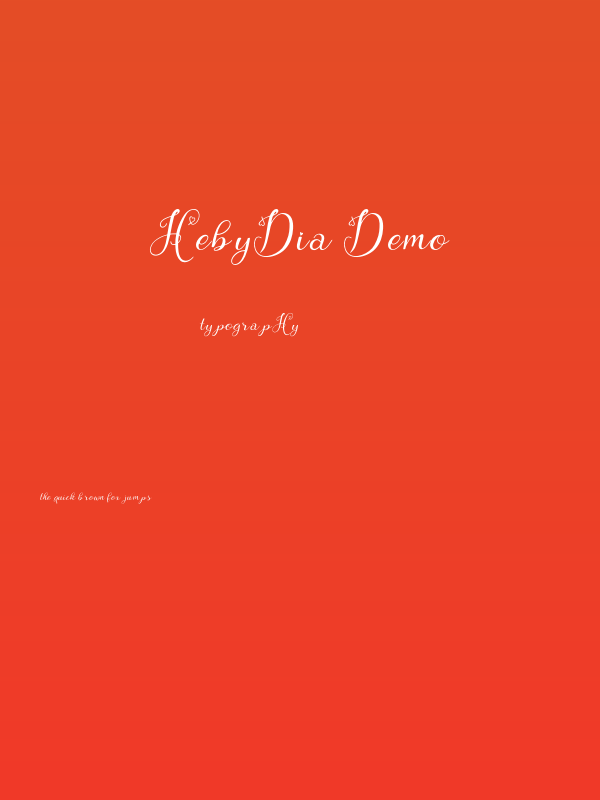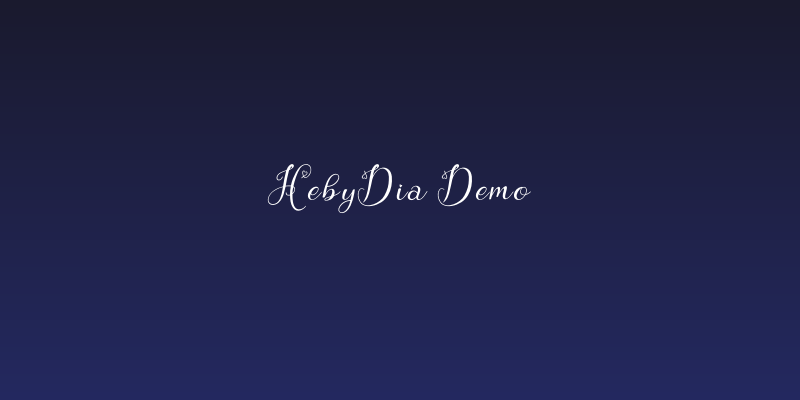
Hebydia Demo Font
Hebydia Demo Description
This font features an elegant, flowing script style with a touch of whimsy, characterized by its smooth, cursive lines and decorative elements such as small hearts integrated into some of the uppercase letters. The lowercase letters maintain a consistent slant and fluidity, enhancing the overall graceful appearance. The font is designed to convey a sense of romance and sophistication, making it suitable for formal invitations and personal branding. The strokes are moderately thick, providing a balanced contrast that ensures readability while maintaining an artistic flair.
| Overall Style | Romantic, Elegant |
| Use Case | Invitations, Branding, Decorative text |
| Proposed Projects | Ideal for wedding invitations, greeting cards, personal branding, and romantic-themed designs. |